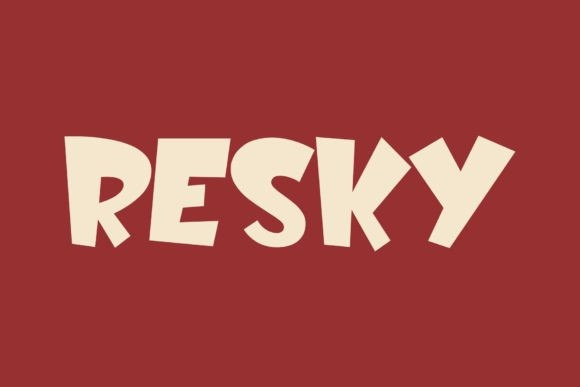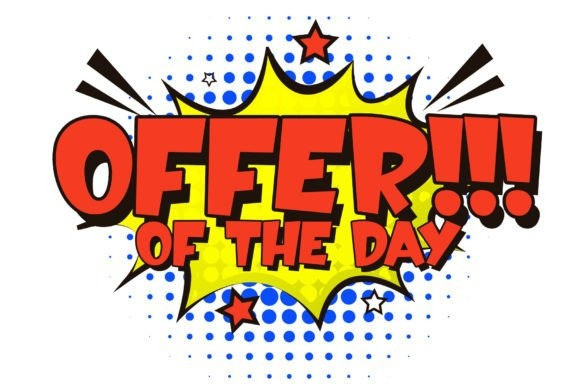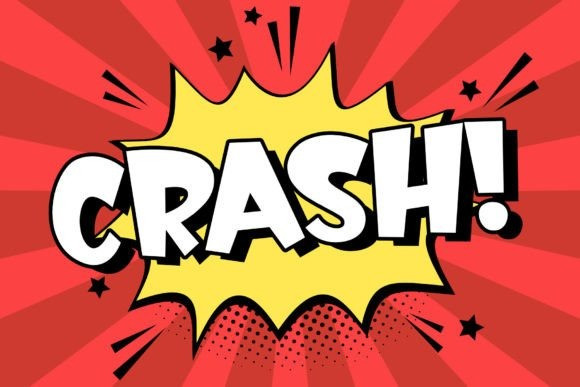
Resky Display Font
Resky Display Font is a captivating and versatile typeface designed to elevate your text with a modern and distinctive flair. Ideal for logos, headlines, posters, and web design, this font merges contemporary style with unique character, ensuring your text stands out.